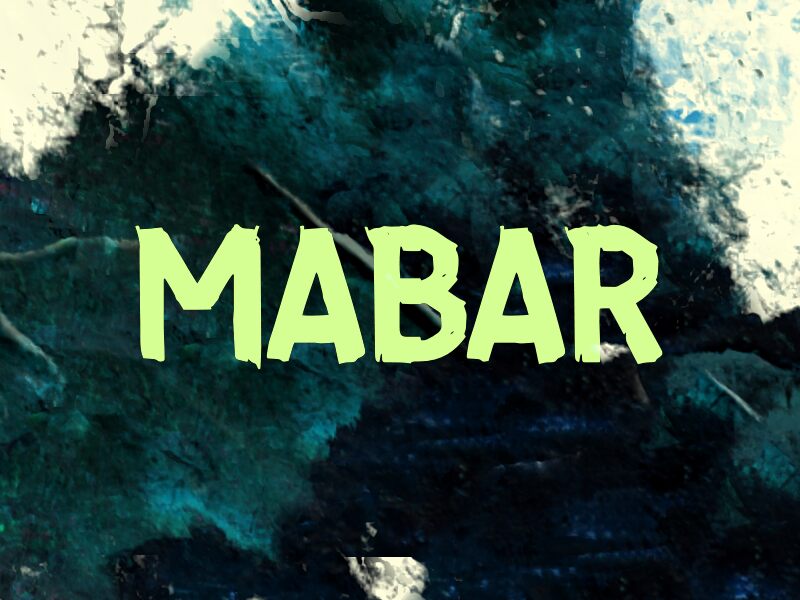
Mabar
Mabar font by wep is a free eroded display typeface that looks like it’s been dragged across concrete and stamped down in thick black ink. Heavy, blocky forms are chewed at the edges, with rough gaps and splatters that feel raw and hand-done rather than digital. The uneven texture gives every word a sense of impact, as if the letters have survived heat, pressure, and a bit of chaos.
Using Mabar, you get bold legibility with a distressed attitude that works beautifully for gig posters, horror titles, urban brand marks, protest graphics, zines, and game art. This free font really thrives at larger sizes, where the gritty edges can breathe. Pair Mabar with a clean geometric sans in smaller text to keep layouts readable while letting the rough, inky letters carry the mood.